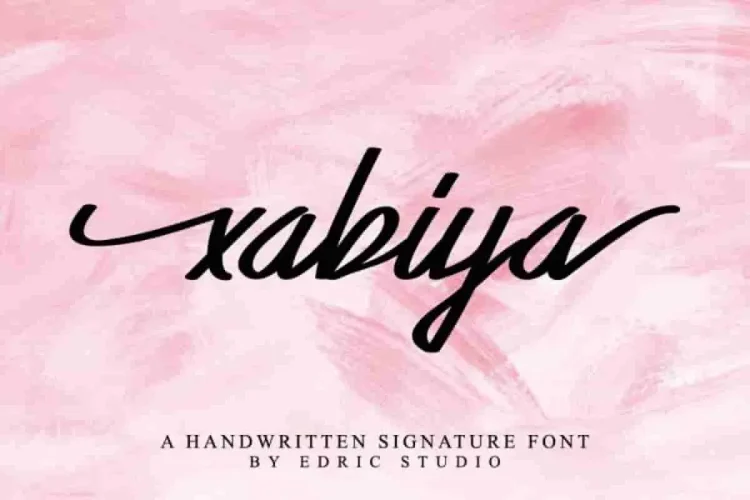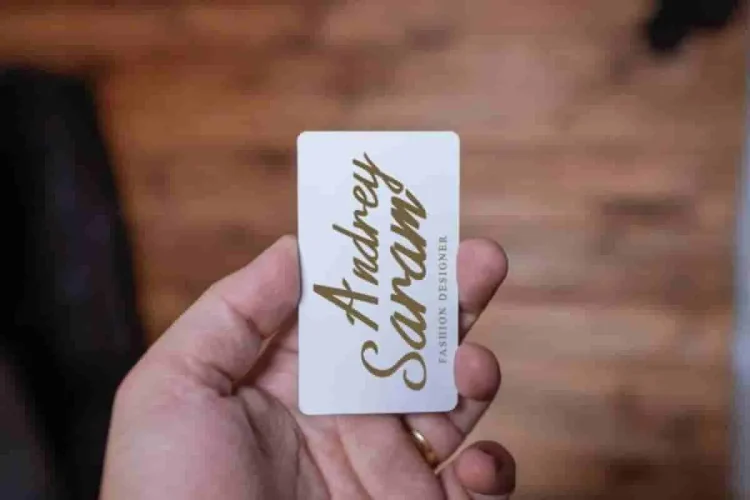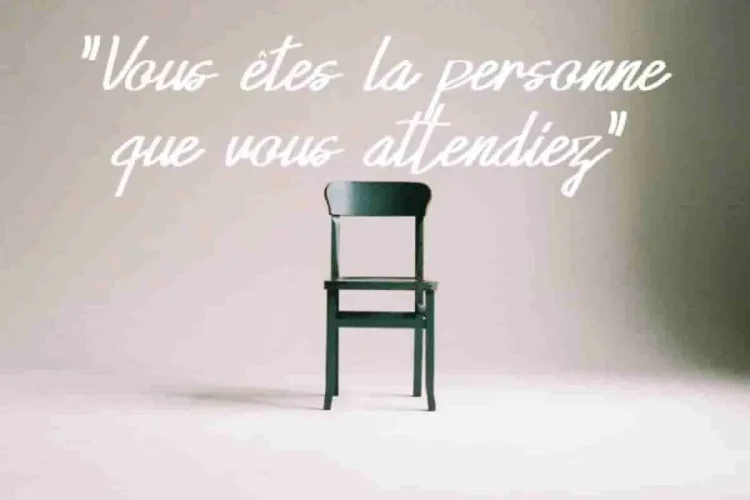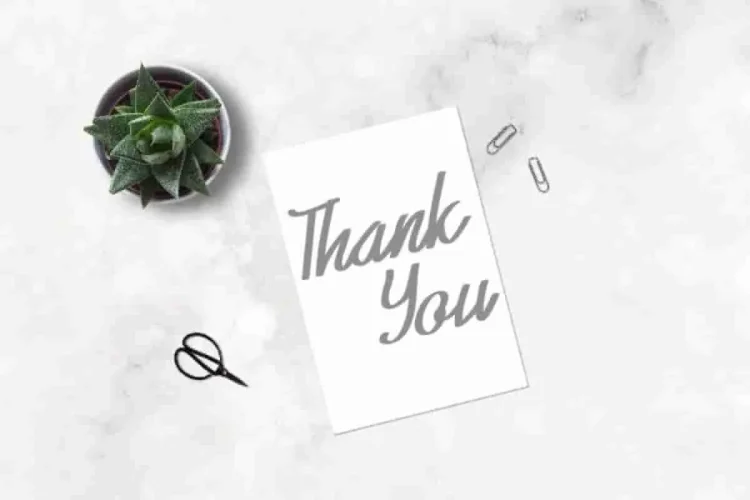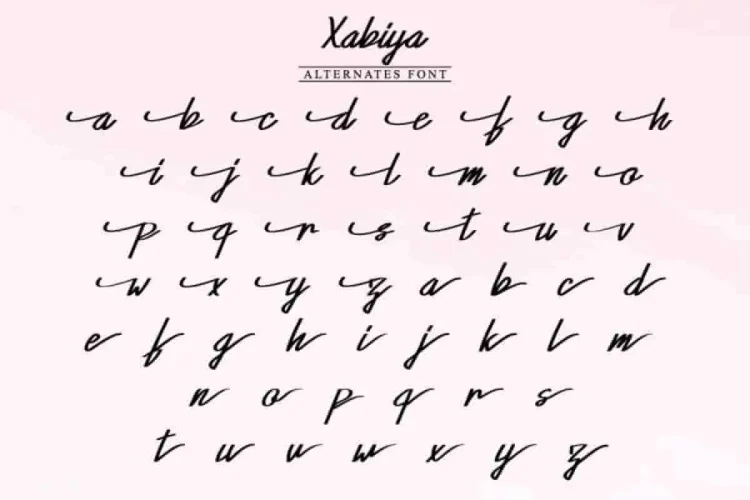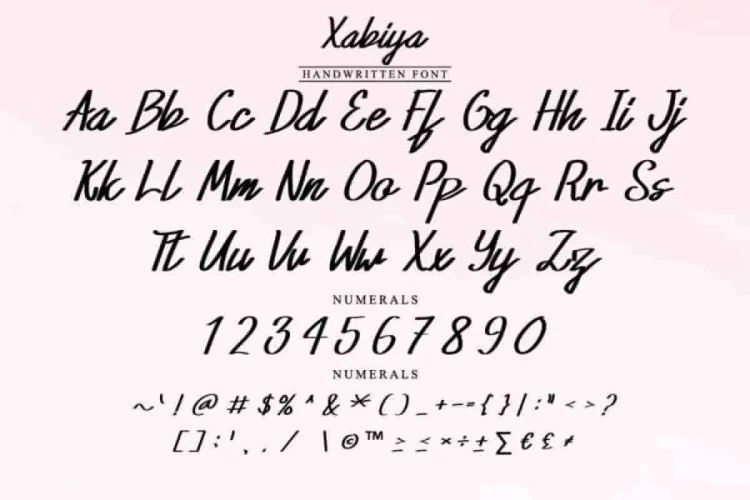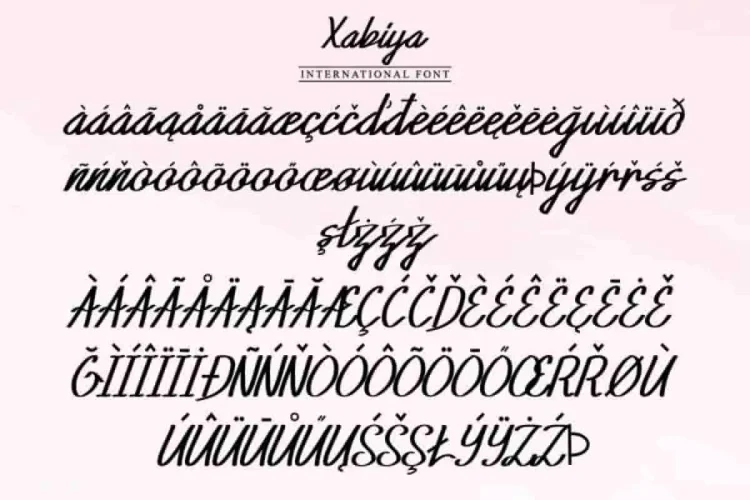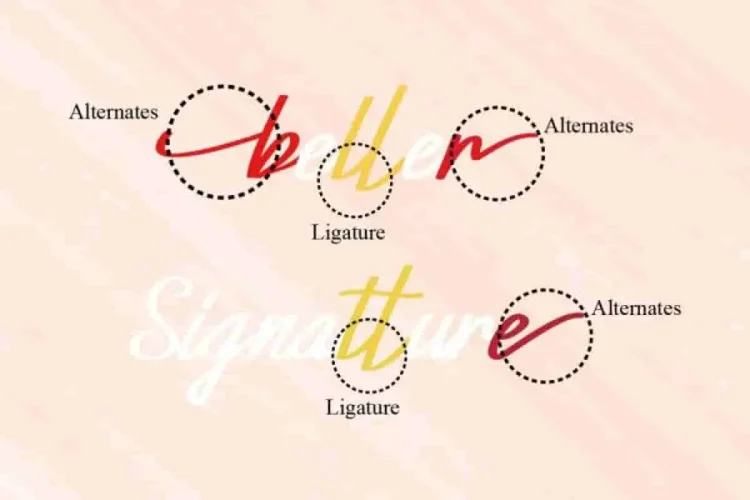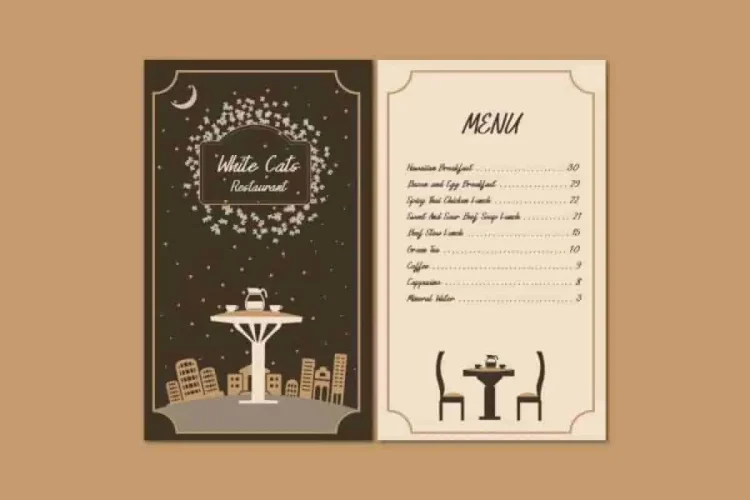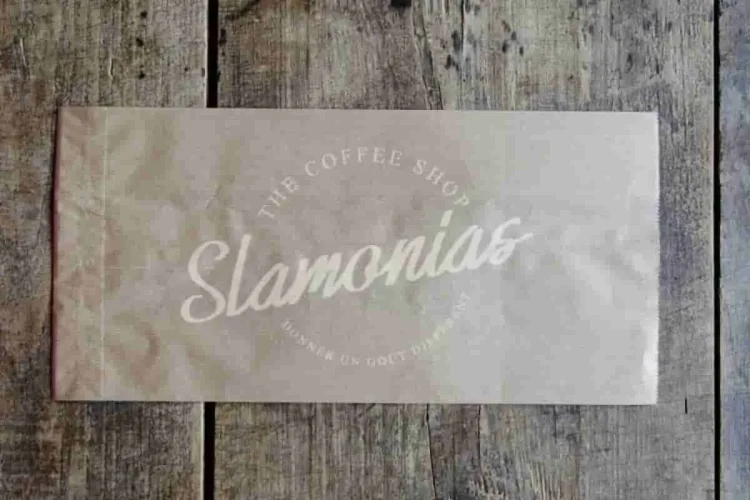
Xabiya Marker Handwritting Font
Xabiya Demo Italic
And this time We’re excited to introduce our new font : Xabiya Marker Font. Designed in 2019 by one of Edric Studio’s talented female lettering artists, Xabiya captures the authentic look of a handwritten marker stroke while adding a modern, professional edge. Xabiya Marker Font just simply great for all your designs projects.
Xabiya is a script font made with a “Marker” or “Highlighter” look  style. Each stroke feels natural yet confident, giving your text an energetic presence. Whether you want to create a stylish logo, an eye-catching headline, or personalized branding, this font delivers both charm and clarity.
Xabiya Marker Font comes with complete international language support, making it suitable for global audiences.